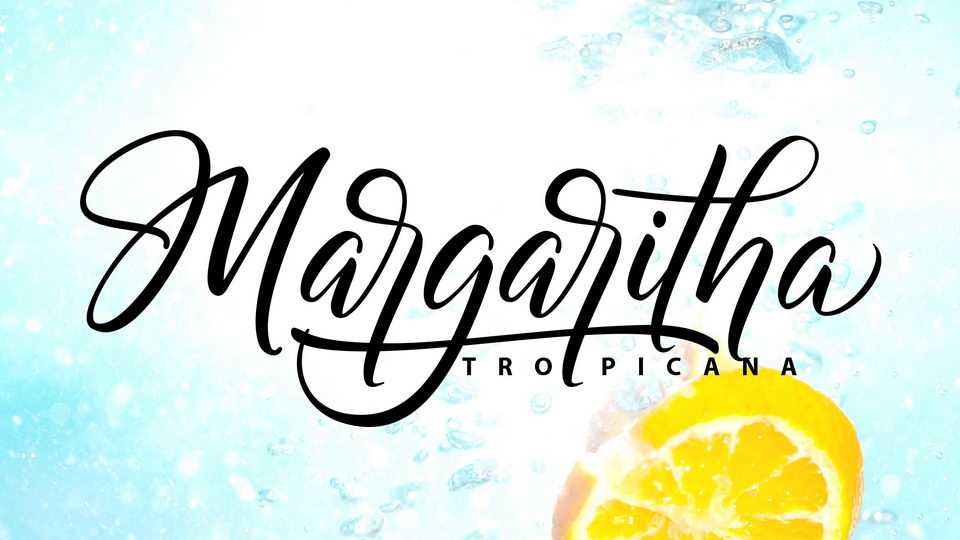
Download Margaritha Tropicana font, a classy modern calligraphy typeface that radiates elegance and authenticity in each of its boldly drawn letters. It’s perfect for logos, branding, social media, wedding design and more.